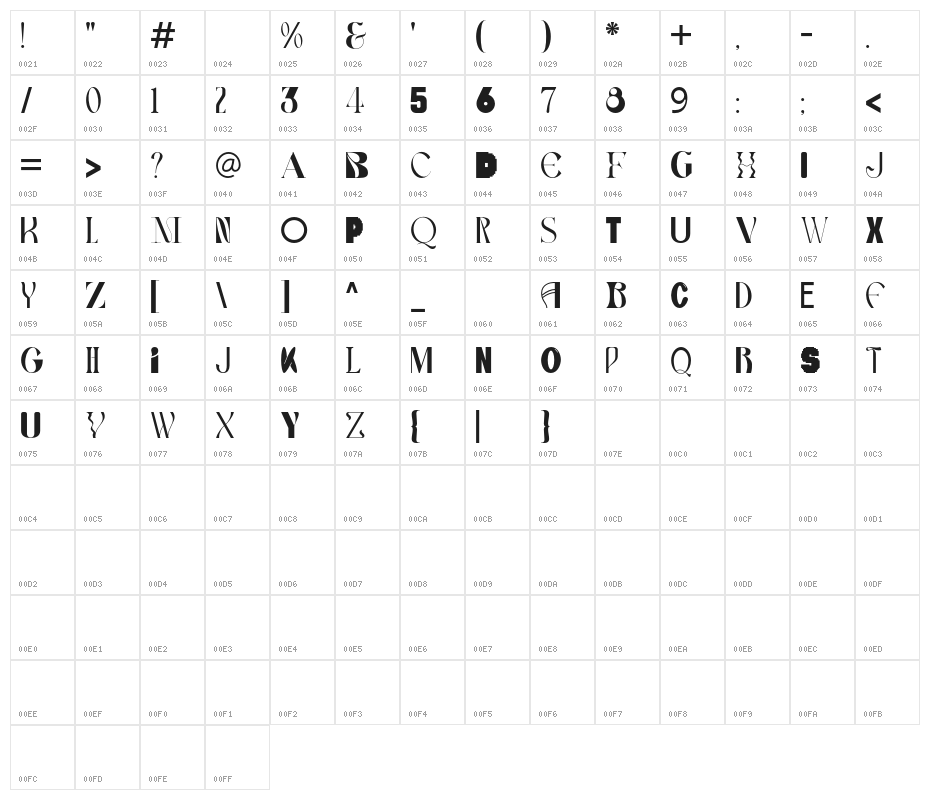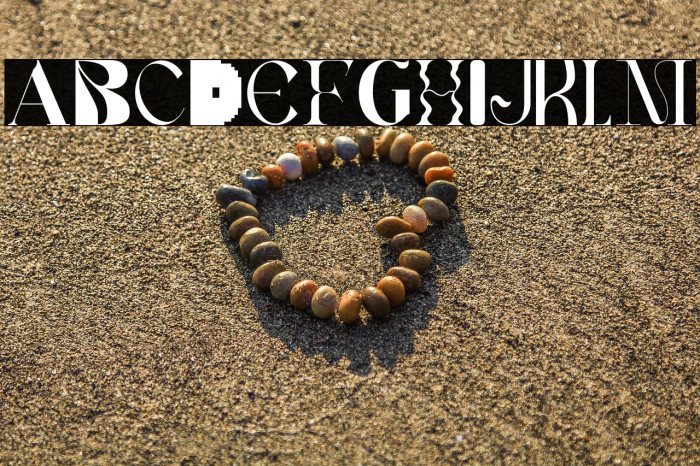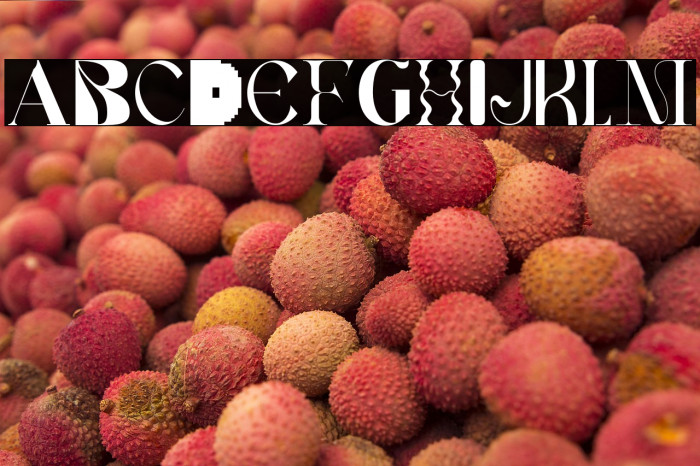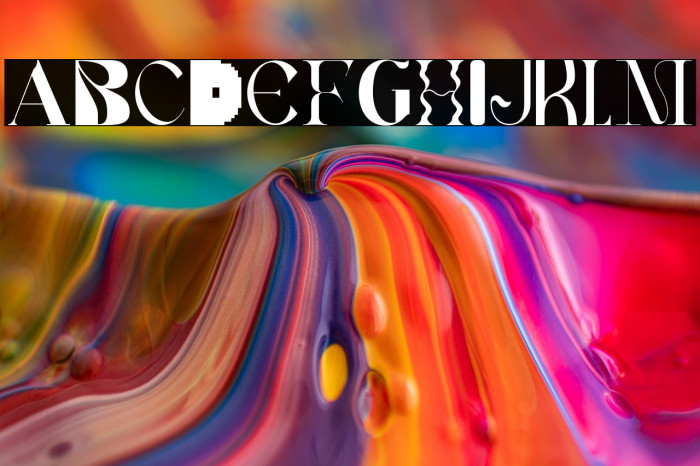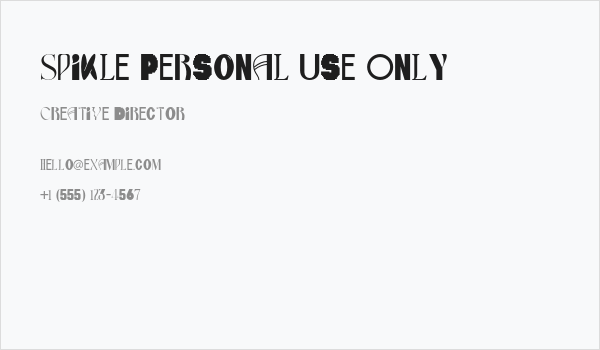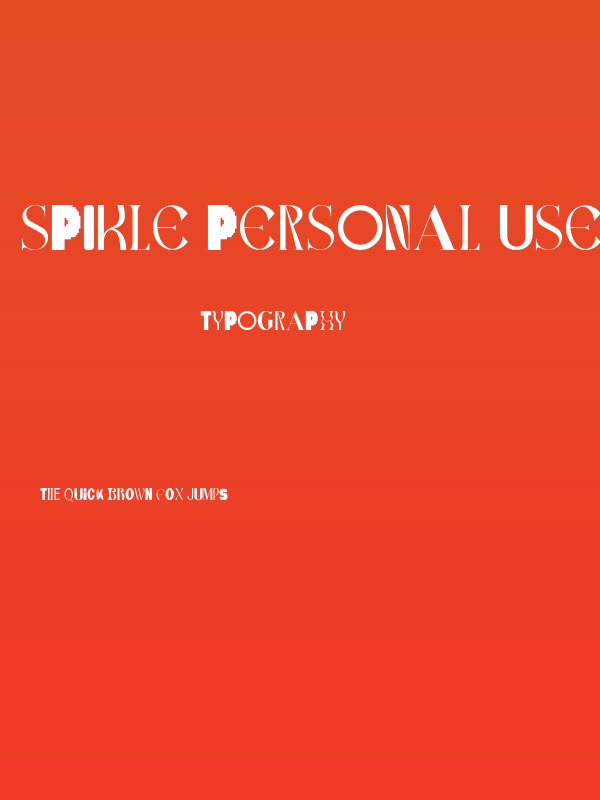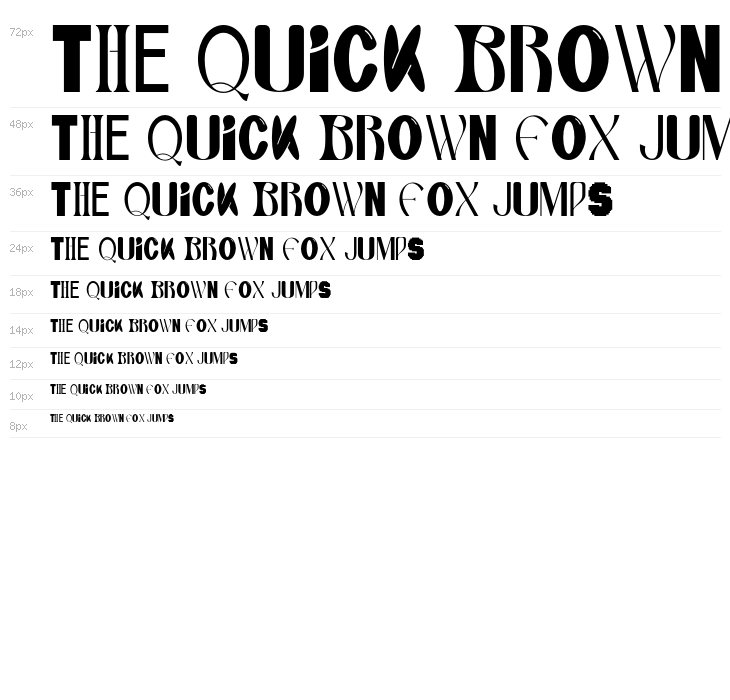
Spikle Personal Use Only Font
Spikle Personal Use Only Description
This font features a highly decorative and artistic style, characterized by bold and unique letterforms. Each character exhibits a distinct flair, with varying stroke thicknesses and creative embellishments that give it a dynamic and eye-catching appearance. The uppercase letters are particularly striking, with some incorporating geometric shapes and others featuring intricate curves and angles. The numbers and special characters maintain this artistic theme, offering a cohesive look across the entire set. This font is designed to stand out and make a statement, making it ideal for projects that require a bold visual impact.
| Proposed Projects | Ideal for posters, branding, album covers, and any project needing a bold visual statement. |